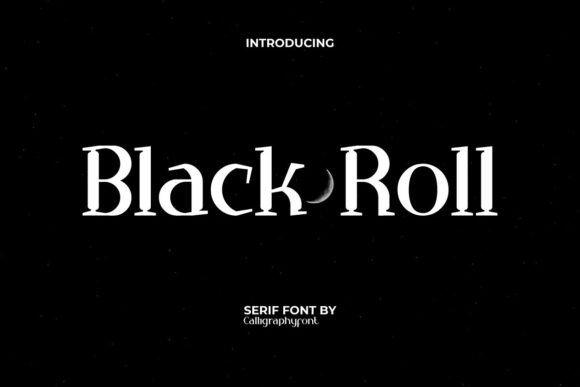
Introducing Black Roll Font: The Ultimate Serif Display Font for Modern Designs
In the world of typography, fonts play a crucial role in conveying the tone and personality of a brand or design. When it comes to making a bold statement, a stylish serif display font is often the go-to choice. This is where Black Roll Font comes in – a mysterious and modern serif font that is perfect for a wide range of design projects.
What is Black Roll Font?
Black Roll Font is a serif display font that boasts a bold and modern aesthetic. Its unique design features short lines at the ends of the letters, which not only add a touch of sophistication but also give it a distinctive look. The thickness of the lines used in this font makes it stand out, making it an excellent choice for designs that require a strong visual impact.
Key Features of Black Roll Font
- Bold and Modern Design: The font’s bold lines and modern aesthetic make it perfect for designs that require a strong visual impact.
- Mysterious Feel: The serif details and short lines at the ends of the letters give Black Roll Font a mysterious and elegant feel.
- Versatile: This font is suitable for a wide range of design projects, from billboards to social media posts.
- High-Quality: Black Roll Font is designed with high-quality and clarity in mind, ensuring that it looks great in any design.
Uses of Black Roll Font
Black Roll Font is an incredibly versatile font that can be used for a wide range of design projects. Here are some of the many uses of this amazing font:
- Billboards: The bold and modern design of Black Roll Font makes it perfect for billboards and large-format prints.
- Brand Image: Use Black Roll Font to create a strong and recognizable brand image that stands out from the competition.
- Covers and Custom Designs: Add a touch of elegance and sophistication to your book covers, magazine covers, or custom designs with Black Roll Font.
- Flyers and Invitations: Create eye-catching flyers and invitations that grab attention with Black Roll Font.
- Labels and Menus: Use Black Roll Font to create labels and menus that are both informative and visually appealing.
- Packaging and Posters: Make your packaging and posters stand out with the bold and modern design of Black Roll Font.
- Screen Prints and Signage: Black Roll Font is perfect for screen prints and signage that require a strong visual impact.
- Social Media Posts: Use Black Roll Font to create social media posts that grab attention and stand out from the crowd.
- Stationery and Stickers: Add a touch of elegance and sophistication to your stationery and stickers with Black Roll Font.
- Thank You Cards and Titles: Use Black Roll Font to create beautiful thank you cards and titles that make a lasting impression.
- Websites: Black Roll Font is perfect for websites that require a bold and modern font to make a strong visual impact.
Why Choose Black Roll Font?
With so many fonts available, why choose Black Roll Font? Here are some reasons why Black Roll Font stands out from the rest:
- Unique Design: Black Roll Font has a unique design that sets it apart from other fonts.
- High-Quality: This font is designed with high-quality and clarity in mind, ensuring that it looks great in any design.
- Versatile: Black Roll Font is suitable for a wide range of design projects, making it a great addition to any designer’s toolkit.
- Easy to Read: Despite its bold design, Black Roll Font is easy to read, making it perfect for designs that require a strong visual impact.
Tips for Using Black Roll Font
Here are some tips for using Black Roll Font to get the most out of this amazing font:
- Use it Sparingly: Black Roll Font is a bold font, so use it sparingly to avoid overwhelming your design.
- Pair it with Other Fonts: Pair Black Roll Font with other fonts to create a unique and visually appealing design.
- Experiment with Colors: Experiment with different colors to find the perfect combination that works with Black Roll Font.
- Pay Attention to Kerning: Pay attention to kerning to ensure that your text looks professional and visually appealing.
Black Roll Font is a stylish serif display font that is perfect for modern designs. Its bold and modern aesthetic, mysterious feel, and versatility make it an excellent choice for a wide range of design projects. With its high-quality design and ease of use, Black Roll Font is a great addition to any designer’s toolkit. Whether you’re working on a billboard, brand image, or social media post, Black Roll Font is sure to make a lasting impression.